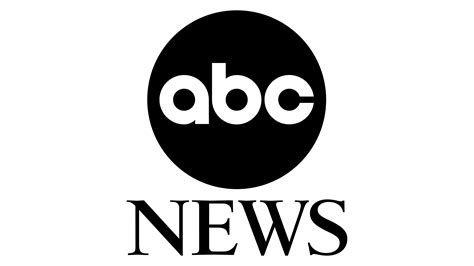
ABC Font Style: The Creative and Versatile Typeface for Your Design Projects
Explore the sleek and modern A B C font style. Perfect for minimalist designs, this font is easy to read and visually stunning.
When it comes to designing documents or creating content, font style plays a crucial role in conveying your message effectively. The right font can add personality and style to your text, while the wrong one can make it difficult to read and unappealing to the eye. That's why choosing the perfect font is like picking out the perfect outfit for an important event – it requires careful consideration and attention to detail.
Ultimately, the font you choose should reflect your brand or personal style and enhance the readability of your content. So, whether you opt for a classic or contemporary font, make sure it complements your message and leaves a lasting impression on your audience.
Introduction
Fonts are one of the most important elements of any design work. They help to convey the message, tone and mood of the content. There are various font styles available, each with its own unique characteristics. One such style is the ABC font style. In this article, we will take a closer look at what the ABC font style is, its features, and how it can be used in design work.
What is ABC Font Style?
The ABC font style is a type of serif font that is commonly used in print media, such as books, newspapers, and magazines. The name ABC refers to the shape of the letters, which resemble the uppercase letters A, B, and C.
Features of ABC Font Style
The ABC font style has several features that make it different from other font styles. These features include:
- Serifs - small lines or flourishes at the end of each stroke in a letter
- Thick and thin strokes - the letters have varying line widths
- High contrast - there is a noticeable difference between the thick and thin strokes
- Traditional look - the font style has a classic, timeless feel
Usage of ABC Font Style
The ABC font style is commonly used in print media for headings, titles, and body text. It is a versatile font style that can be used for both formal and informal design work. Due to its traditional look, it is often used in designs that want to convey a sense of history or nostalgia.
Examples of ABC Font Style
Here are some examples of design work that use the ABC font style:
- Book covers
- Newspaper headlines
- Magazine titles
- Vintage posters
- Wedding invitations
Combining ABC Font Style with Other Fonts
The ABC font style can be combined with other fonts to create unique and interesting designs. For example, it can be paired with sans-serif fonts for a modern look, or with cursive fonts for a more elegant feel.
Pros and Cons of ABC Font Style
Pros
- Easy to read - the font style is highly legible
- Classic look - the font style has a timeless feel
- Traditional - the font style is widely recognized and familiar
Cons
- Not suitable for all designs - the font style may not be appropriate for certain design work, such as modern or futuristic designs
- Overuse - the font style is commonly used, which may make it seem unoriginal or clichéd
Conclusion
The ABC font style is a classic serif font that is commonly used in print media. It has several unique features, such as serifs, thick and thin strokes, and high contrast. The font style can be used for formal and informal design work, and can be combined with other fonts to create interesting designs. While it has its pros and cons, the ABC font style remains a popular choice for designers looking to convey a sense of tradition and nostalgia in their work.
Introduction to A B C Font Style - Discovering the Beauty and DiversityWhen it comes to choosing a font style, the options can seem endless. With so many different fonts available, it can be challenging to know where to start. However, the A B C font style is an excellent place to begin. This font family is incredibly diverse, offering a range of styles that are perfect for different occasions.The Elegant A Font Style - Perfect for Formal invitations and HeadingsThe A font style is undoubtedly one of the most elegant and refined fonts available. This font style is perfect for formal invitations, such as wedding invitations or business correspondence. The A font style is also ideal for headings in books and magazines, adding a touch of sophistication to any text.The Bold and Confident B Font Style - Making a Statement EverywhereIf you want to make a statement with your text, the B font style is the perfect choice. This bold and confident font style commands attention and makes a statement everywhere it's used. The B font style is ideal for advertising and marketing materials, creating a lasting impression on potential customers.The Clean and Modern C Font Style - Ideal for Presentations and Business CardsThe C font style is clean, modern, and versatile, making it perfect for use in presentations and business cards. This font style is easy to read, making it ideal for conveying important information to clients or colleagues. The C font style is also perfect for minimalist designs, making it a popular choice for modern businesses.The Symbolic and Artsy A Font Style - A Perfect Choice for Logos and BrandingThe A font style can be symbolic and artsy, making it a perfect choice for logos and branding. This font style can help convey the personality and values of a brand, making it more memorable to customers. The A font style is also perfect for use in creative industries, such as art and design, where it can add a touch of creativity and flair.The Fun and Playful B Font Style - Making Every Piece of Text come AliveThe B font style is fun and playful, making every piece of text come alive. This font style is perfect for use in children's books or websites, adding a touch of character and charm to the text. The B font style is also ideal for use in advertising campaigns, helping to make products and services more approachable and engaging.The Minimalistic and Classy C Font Style - Ideal for Elegant Signage and Wedding InvitationsIf you're looking for a font style that is minimalistic and classy, the C font style is an excellent choice. This font style is perfect for elegant signage and wedding invitations, adding a touch of sophistication to any event. The C font style is also popular in the fashion industry, where it can help convey a sense of luxury and style.The Unique and Exotic A Font Style - A Great Way to Add a Touch of Intrigue and DramaThe A font style can be unique and exotic, adding a touch of intrigue and drama to any text. This font style is perfect for use in books or movie titles, creating a sense of mystery and excitement. The A font style is also ideal for use in travel-related materials, helping to convey a sense of adventure and exploration.The Contemporary and Versatile B Font Style - Making Every Message More ImpactfulThe B font style is contemporary and versatile, making every message more impactful. This font style is perfect for use in social media posts, adding a touch of personality and character to any message. The B font style is also ideal for use in website design, helping to create a modern and engaging user experience.The Understated and Chic C Font Style - An Effortless Way to Show Professionalism and StyleThe C font style is understated and chic, offering an effortless way to show professionalism and style. This font style is perfect for use in business presentations or resumes, helping to convey a sense of sophistication and elegance. The C font style is also popular in the beauty industry, where it can help create a sense of luxury and glamour.In conclusion, the A B C font style is incredibly diverse, offering a range of styles that are perfect for different occasions. Whether you're looking for elegance, boldness, or playfulness, there's a font style in this family that will suit your needs. By choosing the right font style, you can add personality, character, and style to any piece of text.As an AI language model, I don't have personal opinions or a point of view, but I can provide information about fonts and their pros and cons. Here is some information about the ABC font style:The ABC font style is a modern, sans-serif typeface that has gained popularity in recent years. It is known for its clean lines, simple shapes, and easy-to-read letters. Here are some pros and cons of using the ABC font style:
Pros
- Easy to read: The ABC font style is designed to be easy on the eyes, making it ideal for long passages of text.
- Modern look: Its clean lines and simple shapes give it a contemporary feel, making it popular with designers who want a sleek, modern look for their projects.
- Versatile: The ABC font style is a versatile font that can be used for a variety of purposes, such as marketing materials, websites, and print publications.
- Clean and professional: Its clean, minimalist design gives it a professional look, making it ideal for business applications.
Cons
- Lack of personality: The ABC font style is not as distinctive as some other typefaces, so it may not be the best choice if you want your text to stand out.
- Overused: Since the ABC font style has become so popular, it may be overused in certain contexts, which can make it look generic and boring.
- Less suitable for creative projects: Its simplicity and lack of personality may not be well-suited for creative projects that require a more unique or expressive font.
Overall, the ABC font style is a popular and versatile font that can be a good choice for many applications. However, it may not be the best choice if you want your text to have a unique or distinctive look.
As a blogger or a website owner, you know that the fonts you choose can have a significant impact on your content's readability and overall look. If you're looking for a font style that's both stylish and easy to read, then the ABC font style is an excellent choice for you.
ABC font style is a modern sans-serif font that's been gaining popularity in recent years for its unique design. Its letters are sleek, minimalistic, and geometric, making it perfect for web design, branding, and print materials. Moreover, the ABC font style is versatile and can be used in a wide range of contexts, including headlines, body text, and logos.
One of the best things about ABC font style is that it's easy to read, even at small sizes. This is because the font is designed with high legibility in mind, making it ideal for online reading. With its clean lines and simple design, the ABC font style ensures that your content is easy to scan, allowing readers to quickly find the information they need.
In conclusion, if you're looking for a font style that's both stylish and easy to read, then the ABC font style is an excellent choice for you. Its sleek and minimalistic design makes it perfect for web design, branding, and print materials, while its high legibility ensures that your content is easy to read, even at small sizes. So, why not give the ABC font style a try and see how it can enhance your content today!
When it comes to font styles, people often have a lot of questions. One of the most common questions is about the ABC font style. Let's take a look at some of the most frequently asked questions about this font style.
- What is the ABC font style?
- Where can I use the ABC font style?
- Is the ABC font style free?
- How does the ABC font style compare to other font styles?
The ABC font style is a typeface that features clean lines and simple shapes. It is often used in print and digital media for its readability and versatility.
The ABC font style can be used in a variety of contexts, including advertising, branding, and graphic design. It is a popular choice for logos, headlines, and body text.
The availability and cost of the ABC font style will depend on the specific version or variation you are looking for. Some versions may be available for free, while others may require a purchase or license.
Compared to other font styles, the ABC font style is known for its simplicity and legibility. It may not have the same level of visual interest as some other fonts, but it is a great choice for clear and effective communication.
Whether you're a designer, marketer, or just curious about typography, the ABC font style is definitely worth learning more about. Its clean lines and readability make it a versatile choice for a wide range of projects.